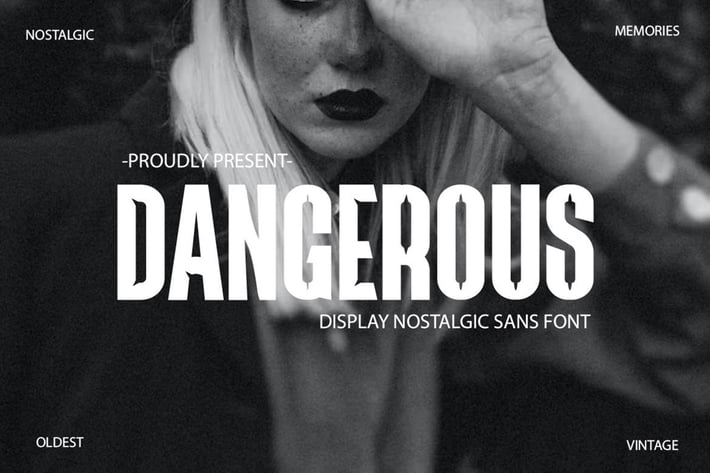
Dangerous – Unique Vintage Display Sans Serif Font
Dangerous is a bold vintage display sans serif font with a distinct, rebellious flair. Inspired by old-school posters and underground visuals, it’s perfect for edgy branding, band merchandise, bold headlines, and retro-themed projects.
This font blends nostalgic charm with a raw, modern attitude—ideal for grabbing attention in style.
Key Features:
- Bold sans serif with vintage and edgy vibes
- Great for branding, posters, packaging, and titles
- Unique curves and impactful presence
- Suitable for retro, grunge, or rebellious aesthetics
- Uppercase letters, numbers, and punctuation
- Professionally spaced and easy to use
Dangerous gives your typography a daring and unforgettable identity.
Enhance your projects with Dangerous – a perfect blend of vintage charm, modern uniqueness, and bold display typography.